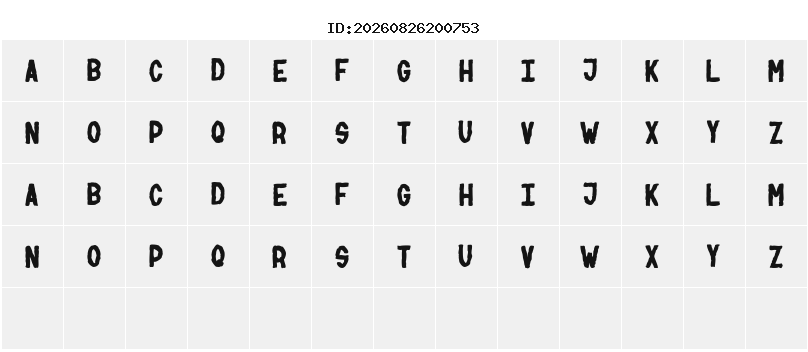
• Font Name: NUMBER two
• Designer: dcoxy Medina Gregory
NUMBER two.ttf is a modern, elegant sans-serif font designed for ultimate readability and visual harmony. Perfect for branding, headlines, web design, and print materials.